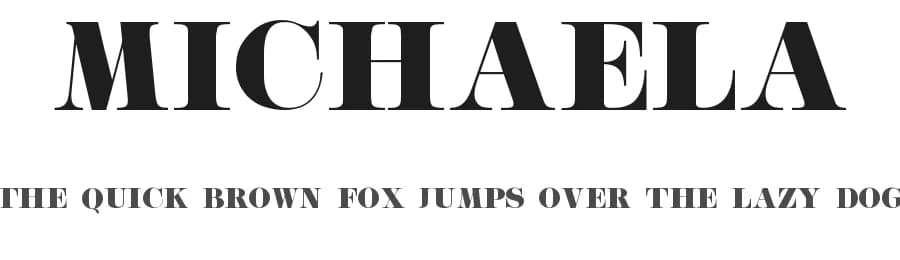
About Michaela Font
| Designer | Adriyawan |
Michaela Font is a versatile serif font that works for both headings and body text. Pair it with a contrasting sans-serif or slab serif font to add visual interest and a clear distinction between titles and body copy.
Michaela Font